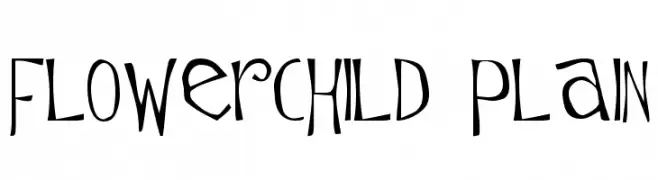
A bold, eclectic display font with dynamic and playful letterforms.
A spooky, jagged font perfect for Halloween themes.
A playful, modern font with a hand-drawn, irregular style.